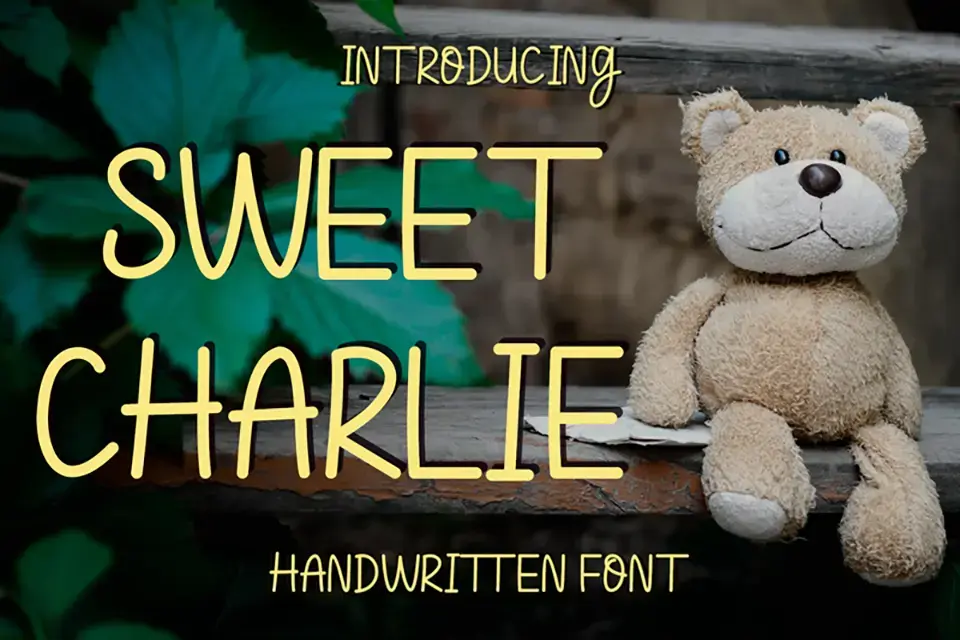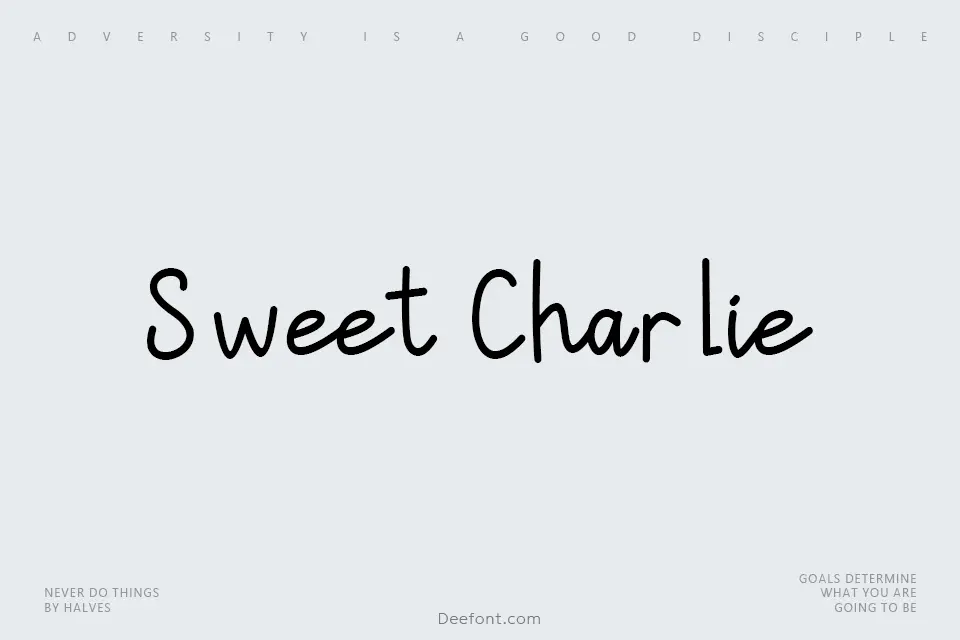
Sweet Charlie Font
Sweet Charlie is a fun, quirky, and authentic handwritten script font that brings whimsy and warmth to any creative design. Its charming curves, bouncy letterforms, and organic strokes create a delightfully personal aesthetic perfect for romantic projects, greeting cards, invitations, wedding stationery, posters, and decorative typography. The font's fluid, hand-drawn style captures genuine character, making it ideal for designers seeking to add personality and flair to craft projects, gift labels, and contemporary designs that celebrate authentic handwriting.